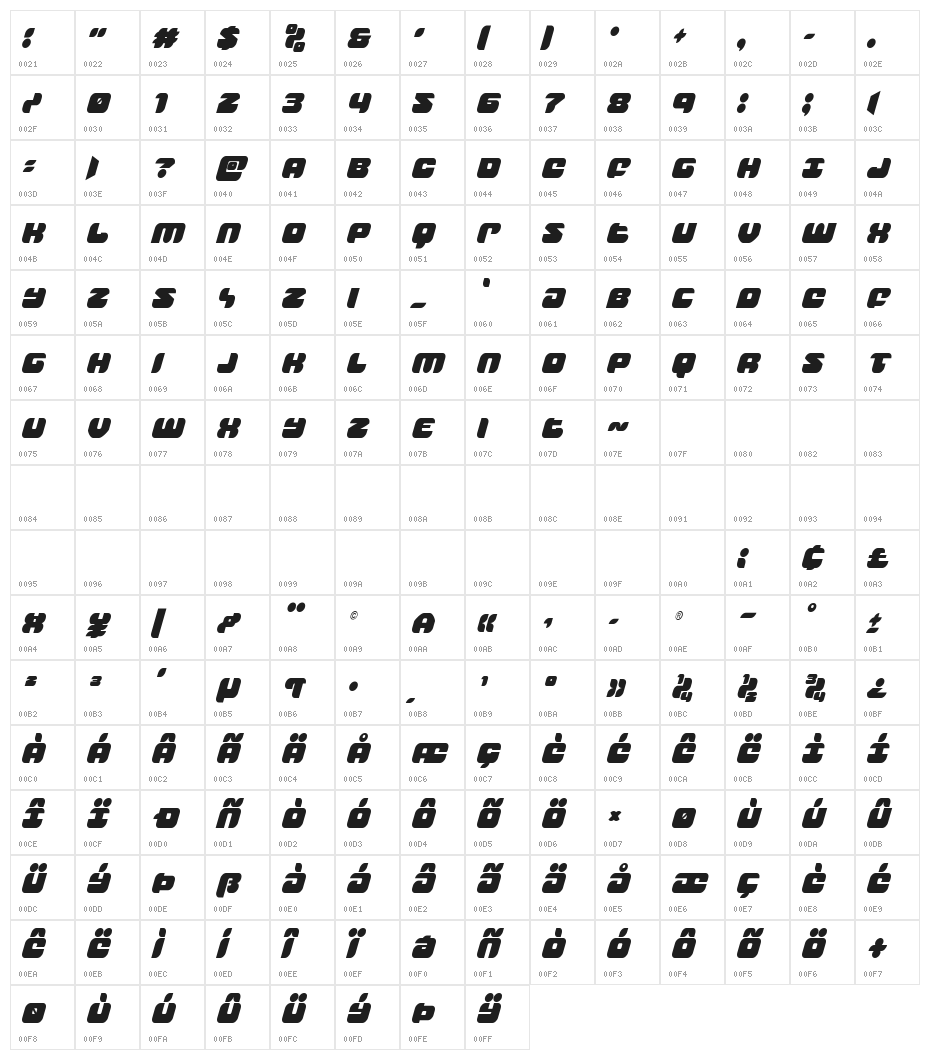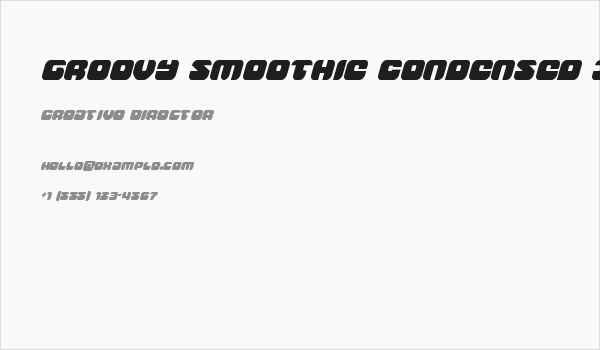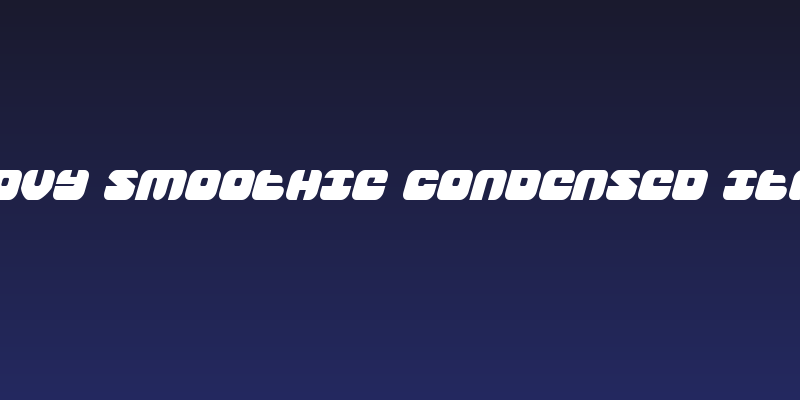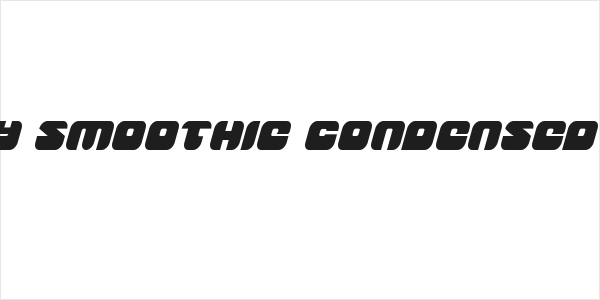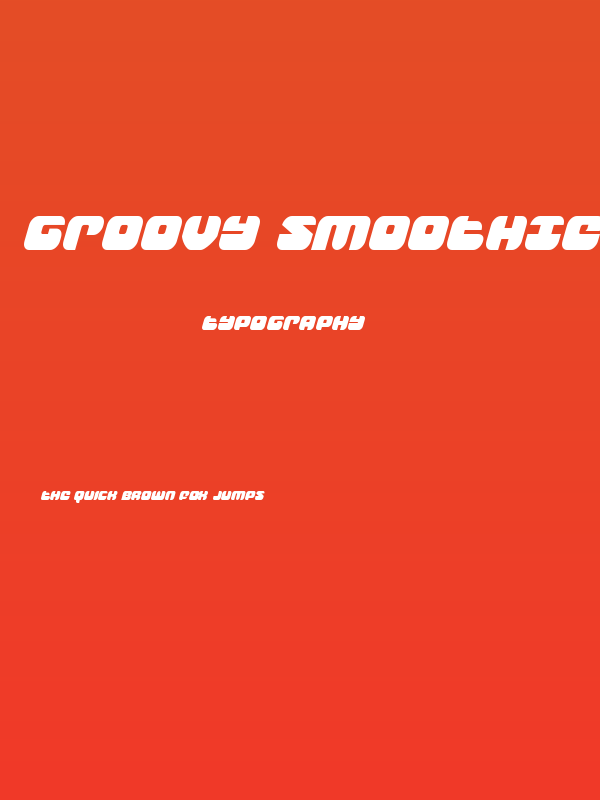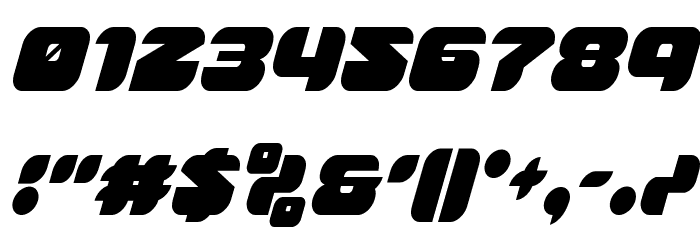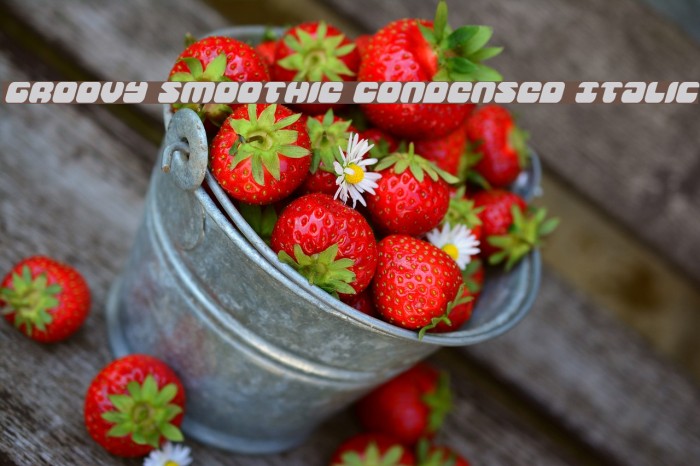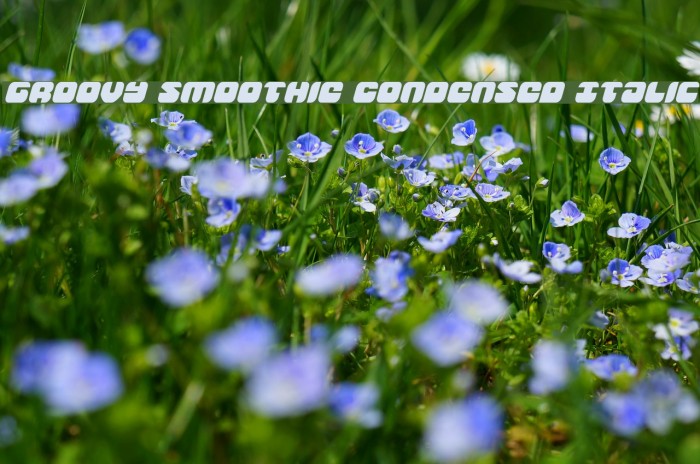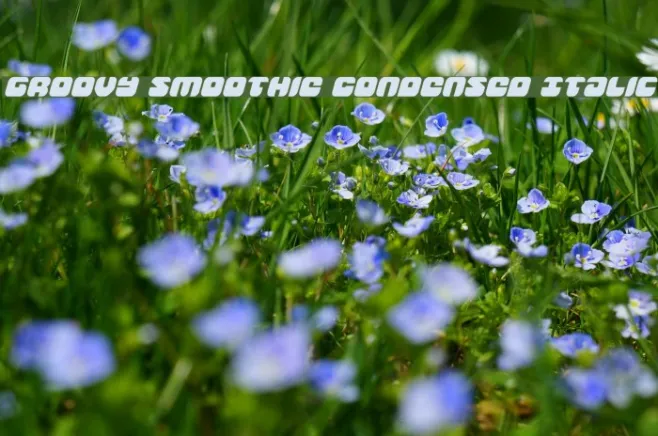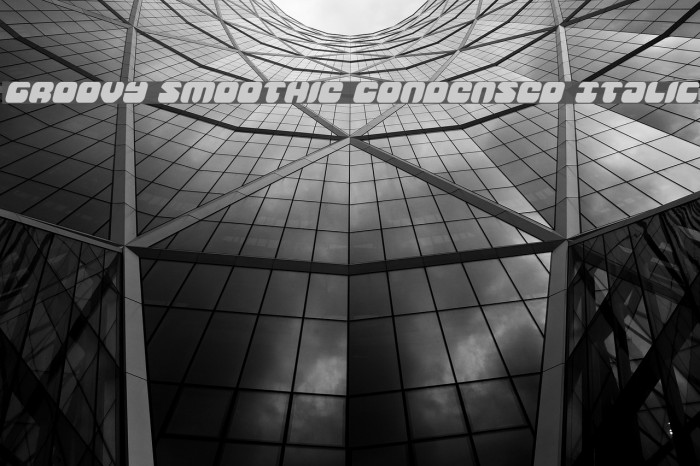
Groovy Smoothie Condensed Italic Font
Groovy Smoothie Condensed Italic Description
This font features a bold, smooth, and rounded style with a condensed form, giving it a unique and modern appearance. The italic slant adds a dynamic and energetic feel, making it stand out in any design. Each character is crafted with a consistent thickness, providing a uniform look across the alphabet. The rounded edges and smooth curves contribute to its approachable and friendly aesthetic. This font is ideal for projects that require a bold statement while maintaining a playful and contemporary vibe.
| Proposed Projects | Ideal for branding, posters, headlines, and any design requiring a bold and modern touch. |